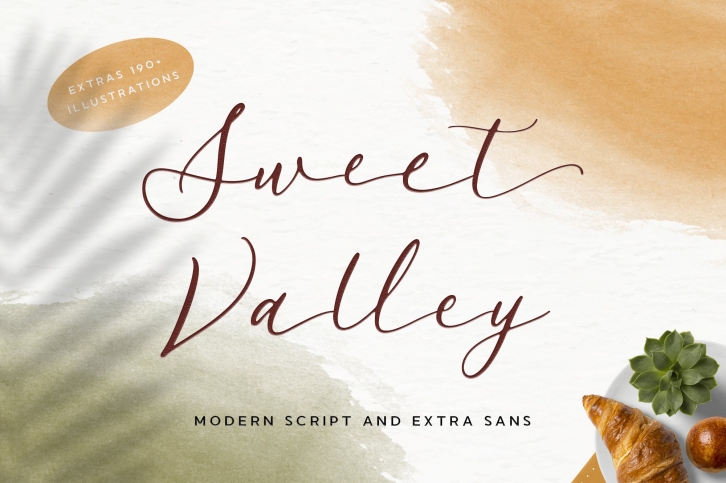
Introducing Sweet Valley Script + Extras
The handwritten modern script works perfectly together with sans serif and 190+ cute illustrations. Sweet Valley Script includes a full set of lowercase letters with beginning swashes , a full set of lowercase letters with ending swashes, contextual alternates, stylistic alternates and ligatures features that makes the font look more natural.
Sweet Valley matches applies in some designs such as the logotype, brand, magazine, website or blog headlines, packaging, branding, quotes, invitation cards, greeting cards, business cards, and wedding more.
Sweet Valley Includes:
- Ligatures, Contextual alternates, Stylistic alternates, and Swash (Beginning and Ending Swashes)
- Uppercase, lowercase, numeral and punctuation
- Multilingual support for English, French, Italian, Spanish, Portuguese, German, Swedish, Norwegian, Danish, Dutch, Finnish, Indonesian, Malay, Hungarian, Polish, Croatian, Turkish, Romanian, Czech, Latvian, Lithuanian, Slovak, Slovenian.